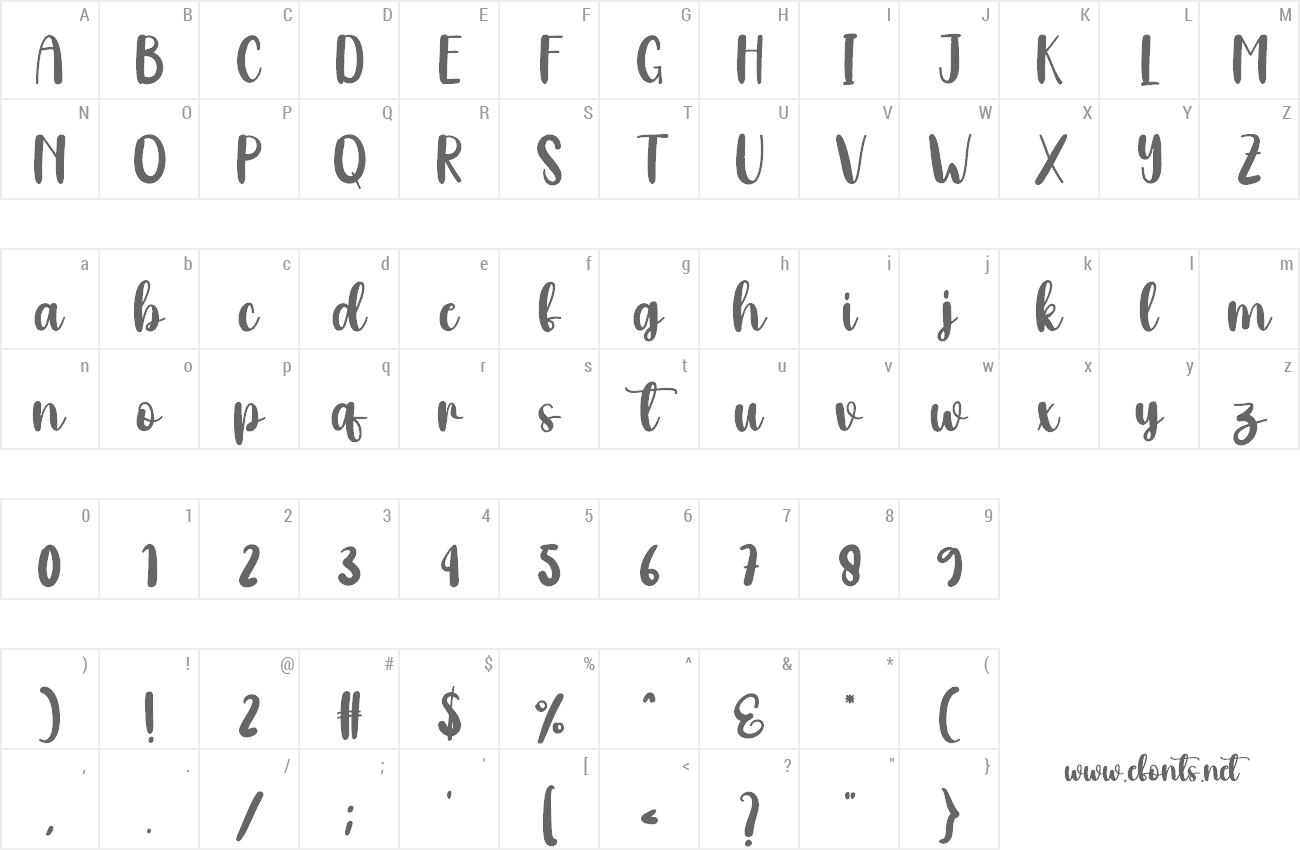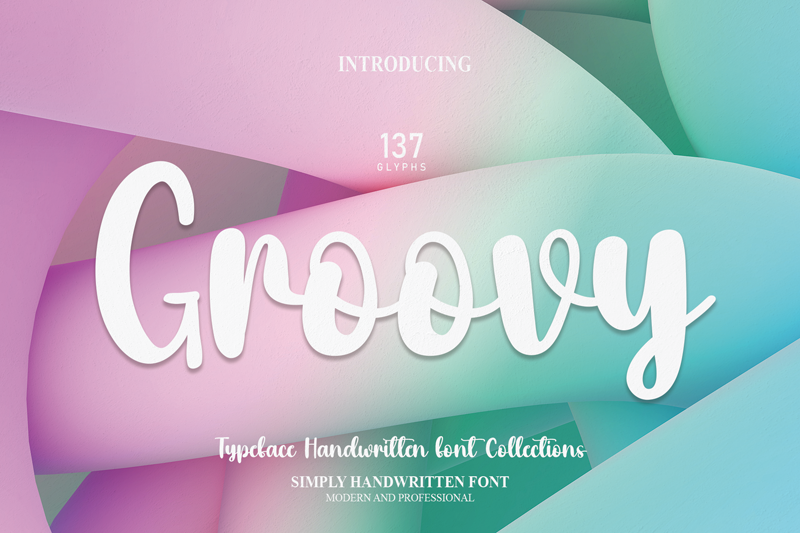
DETAILS special creative products for you, our products will give you an extraordinary experience. the latest style letters are perfect for wall displays, wedding invitations, social media post logos, advertisements, product packaging, product designs, labels, photography, watermarks, invitations, stationery, and any project that requires taste handwriting. Links for license and contact: ================================================== ========= https://scratchones.com gmail : afistakosongtujuh@gmail.com ================================================== ========= ATTENTION: WARNING!!! By installing or using this font, you agree to the Product Use Agreement: - This font has a FULL VERSION and is ONLY for PERSONAL USE. NO COMMERCIAL USE! - If you need CUSTOM PERMIT or COMPANY PERMIT please go to : ( www.scratchones.com ) - Any donations are greatly appreciated. Paypal account for donations: ( www.paypal.me/scratchones ) USE OF COMMERCIAL FONT WITHOUT PURCHASE OF LICENSE OFFICIAL www.scratchones.com will be fined 8X THE MINIMUM LICENSE FEES FROM THE LICENSE PRICE !!!! More... |